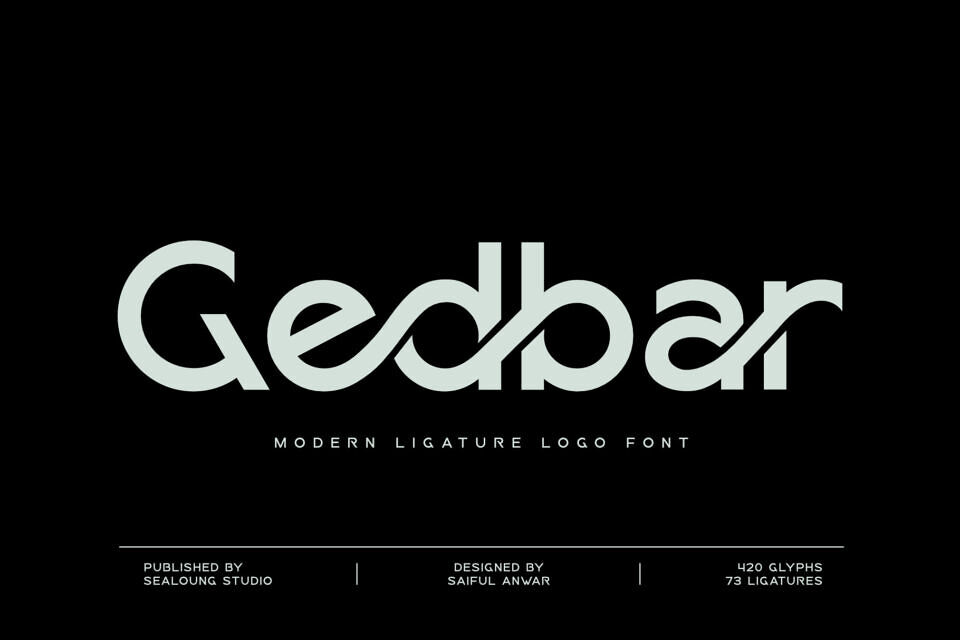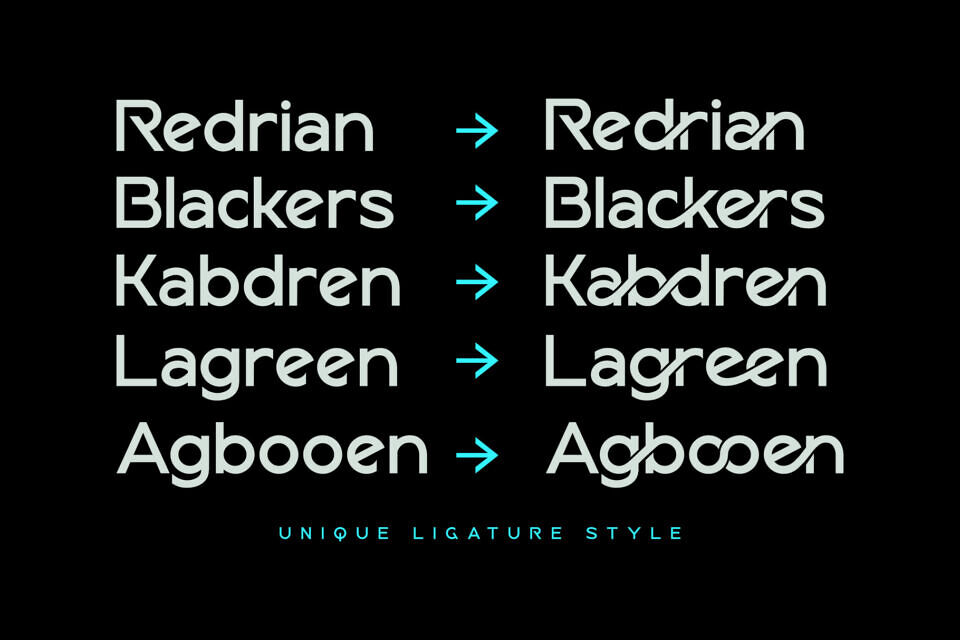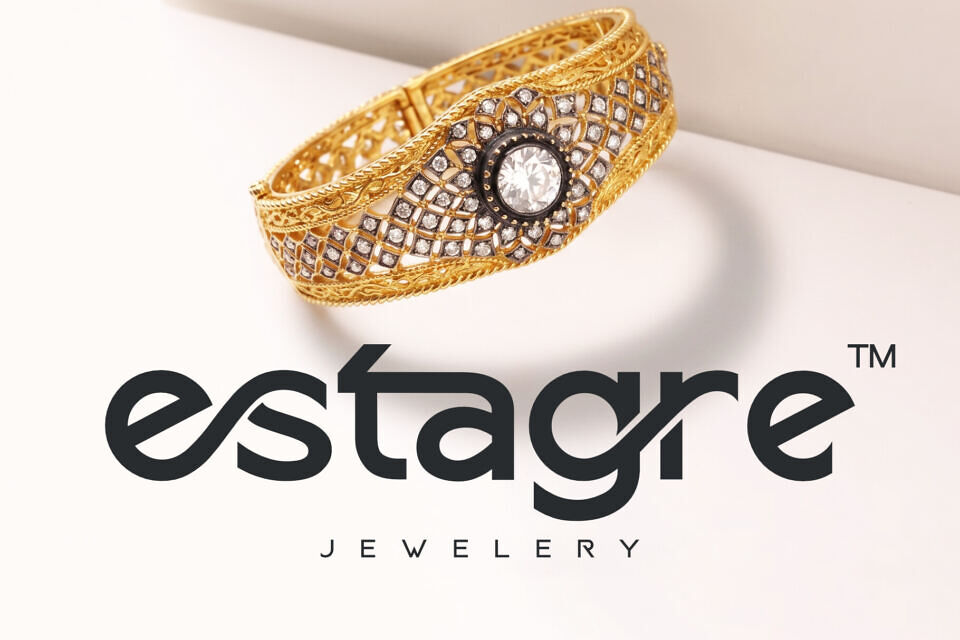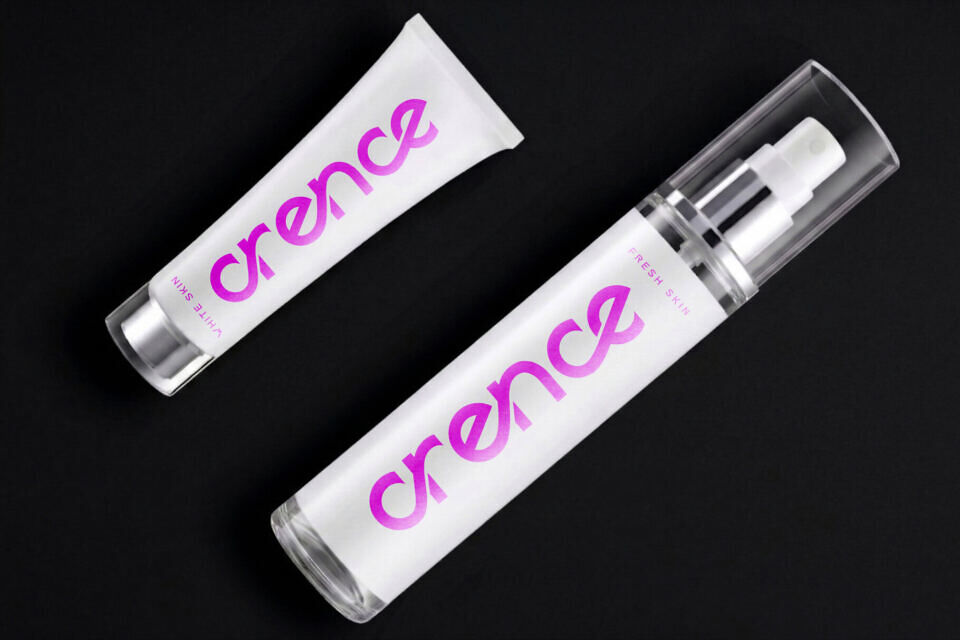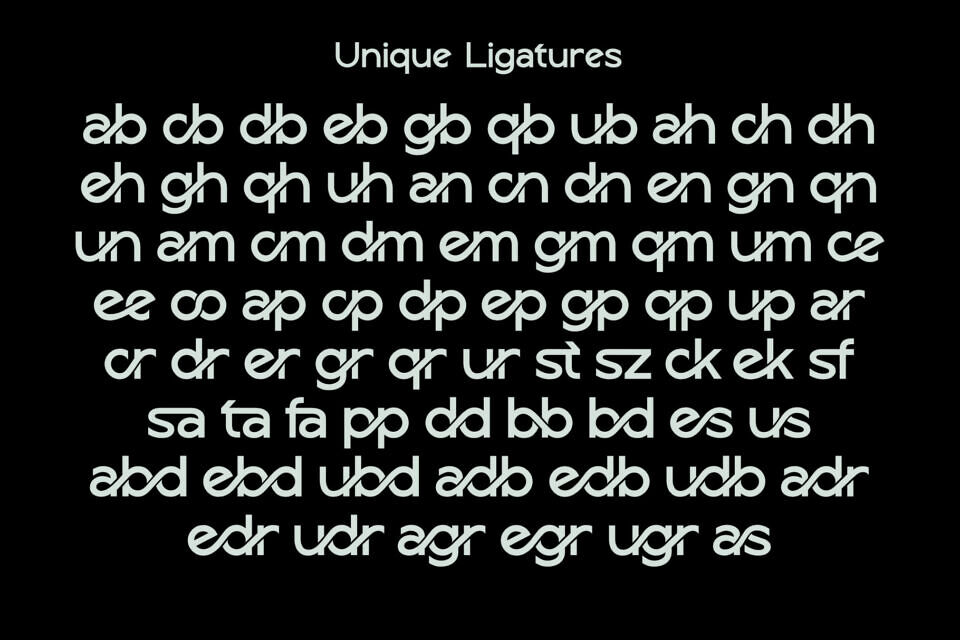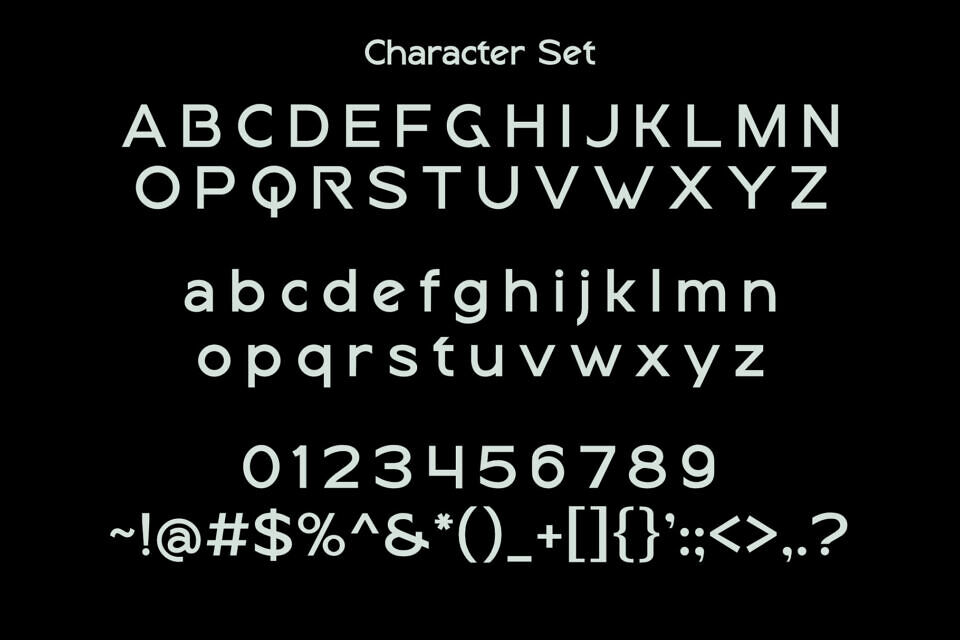
Gedbar Font
Introducing Gedbar, a striking and modern typeface crafted to strengthen your brand identity. With its clean structure and bold personality, Gedbar is built to create visuals that instantly capture attention.
Its modern design balances clean lines with artistic flair, perfect for logos, headlines, and posters. Unique ligatures add character, while multiple formats ensure seamless use across platforms. Gedbar is designed to bring clarity, strength, and style into every project. Whether used for branding or creative layouts, it delivers a bold and refined impression that enhances your overall design.